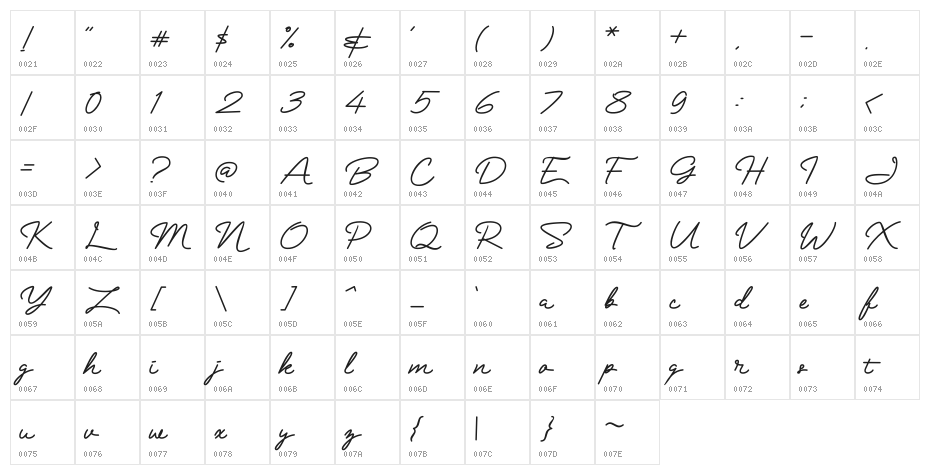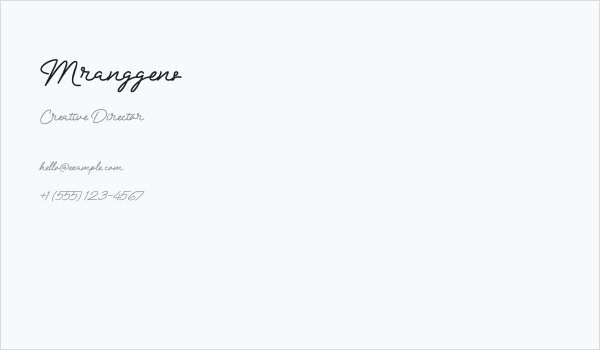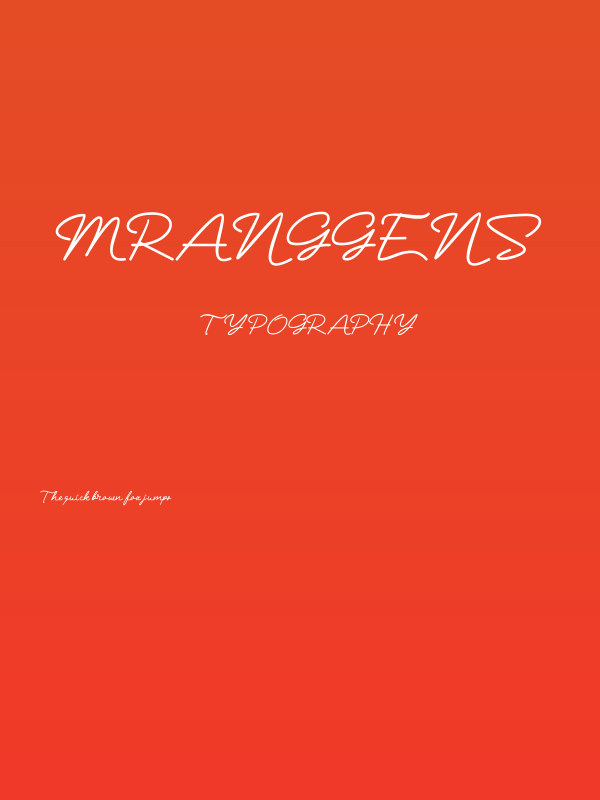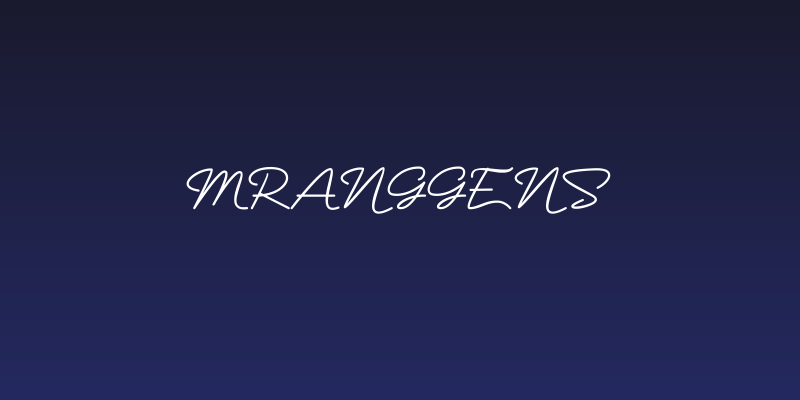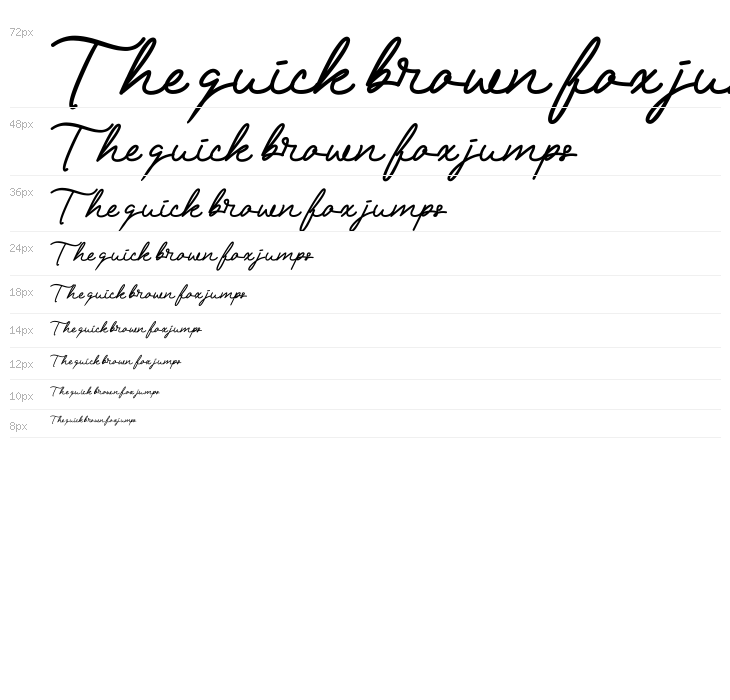
Mranggens Font
Mranggens Description
This font features a fluid, cursive style that mimics natural handwriting with a touch of elegance. The uppercase letters are slightly slanted, maintaining a consistent flow throughout the alphabet. Lowercase letters are more pronounced with a smooth, connected script, giving a sense of continuity and grace. The numbers are clear and legible, maintaining the cursive theme without sacrificing readability. Special characters are well-integrated, matching the overall style with a playful yet sophisticated touch. This font is perfect for projects that require a personal, handwritten feel while maintaining a professional appearance.
| Overall Style | Elegant, Handwritten |
| Proposed Projects | Ideal for wedding invitations, personal branding, greeting cards, and elegant stationery. |